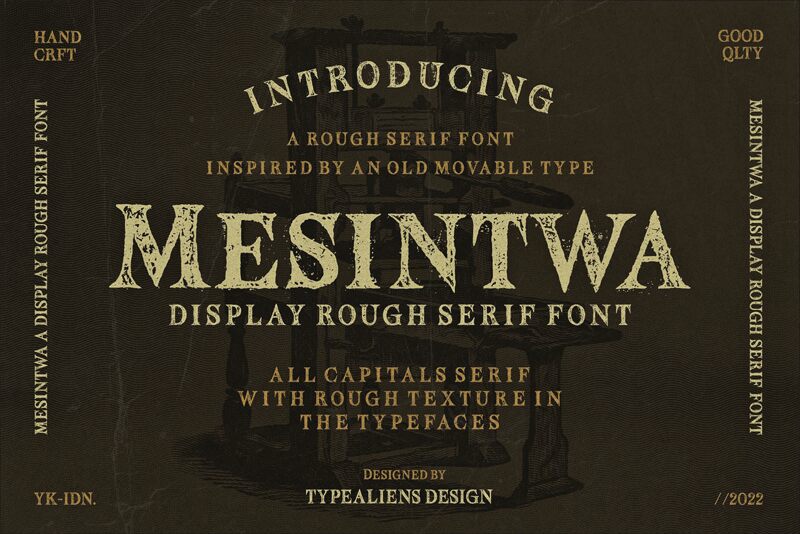
Mesintwa, crafted by the talented ilhamtaro, emerges as a display font that effortlessly stands out from the crowd. With its eroded style and semi-bold weight, it evokes a rugged charm that's both captivating and versatile.
Mesintwa is not just a font; it's an artistic statement that brings a unique edge to any project. Its textured appearance makes it perfect for designs seeking to blend vintage allure with modern boldness. Whether for branding, poster design, or creative art pieces, Mesintwa offers an unparalleled adaptability. Its distinct personality ensures your work will not only be noticed but remembered.